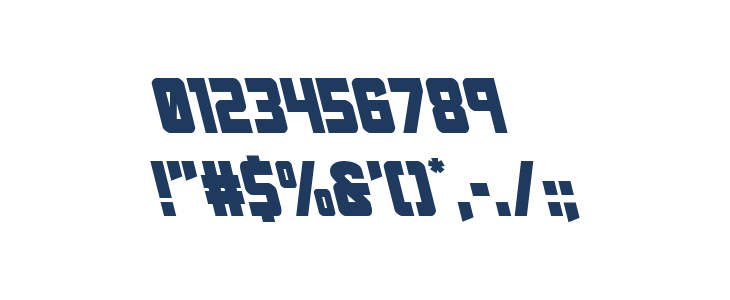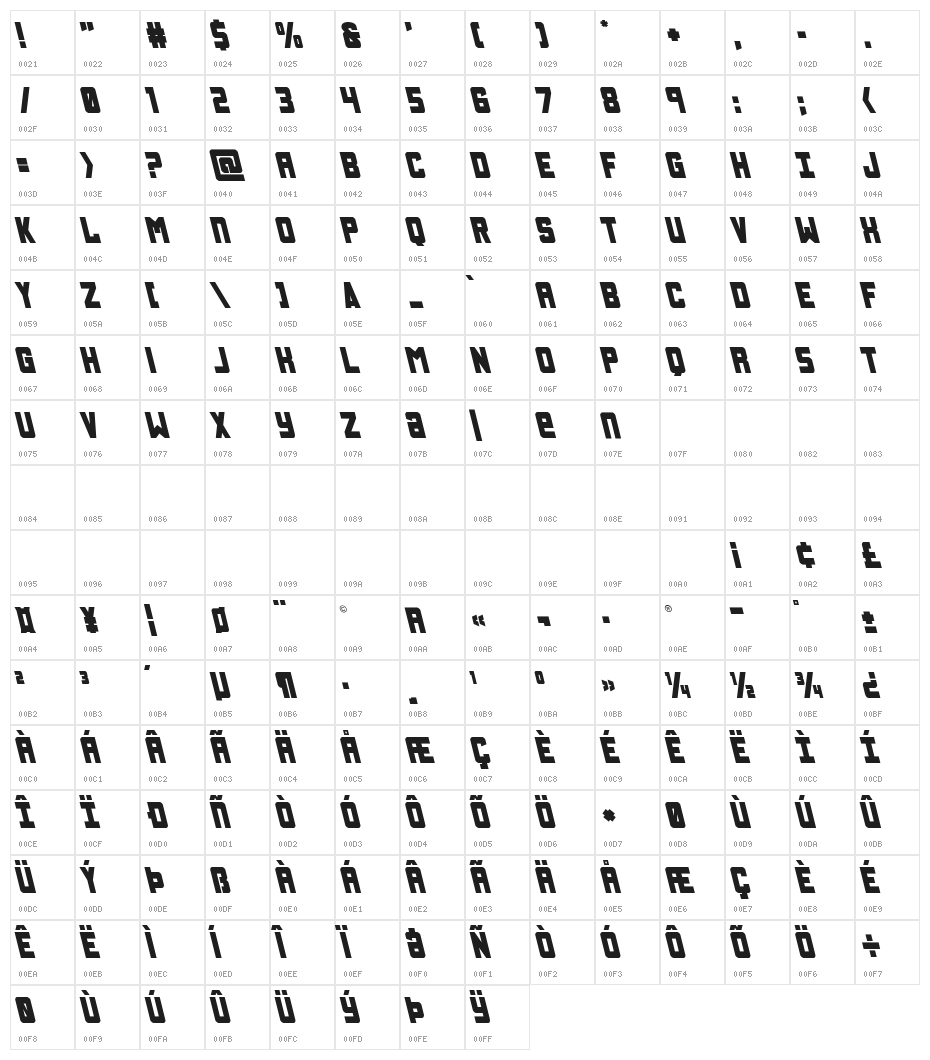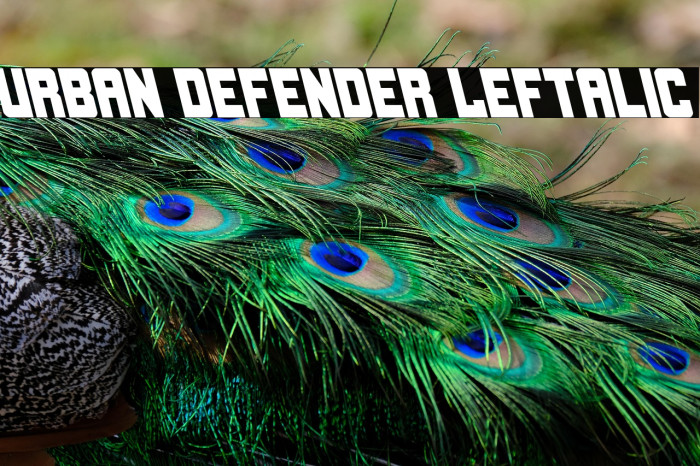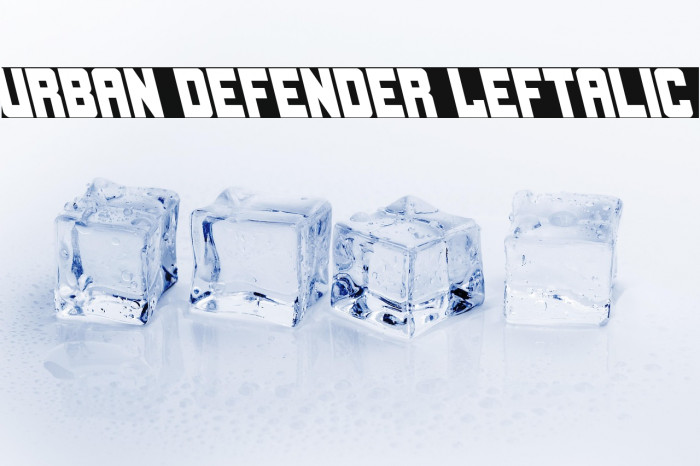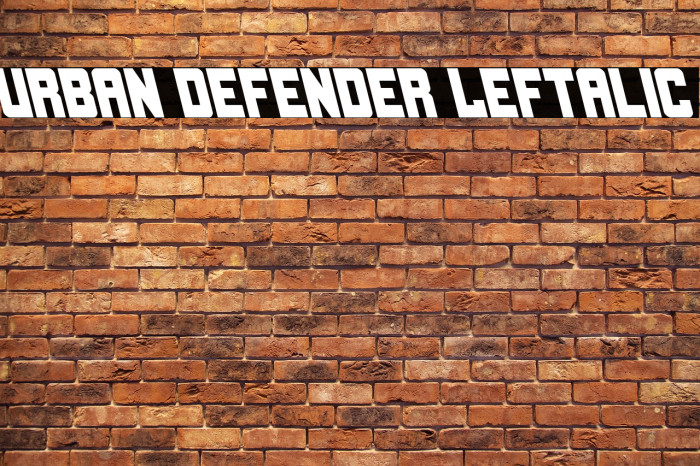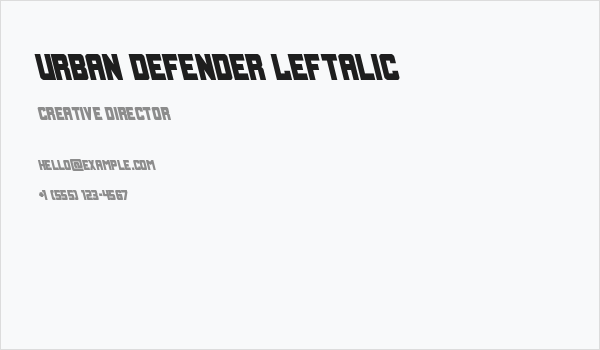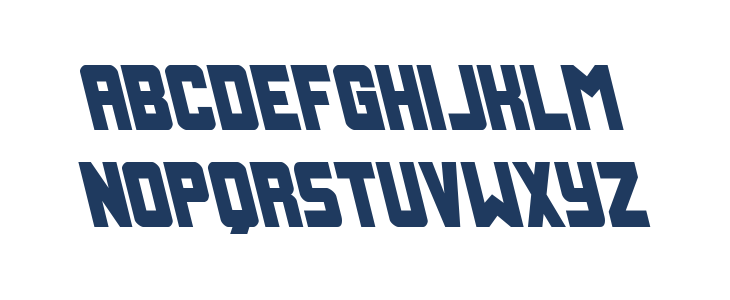
Urban Defender Leftalic Font
Urban Defender Leftalic Description
This font features a bold and angular design with a strong, geometric structure. The letters are characterized by sharp edges and a slightly slanted orientation, giving it a dynamic and assertive appearance. The uppercase and lowercase letters maintain a consistent style, with uniform stroke widths that enhance its boldness. The numerals and special characters follow the same design principles, ensuring a cohesive look across all elements. This font's distinct style makes it suitable for attention-grabbing designs.
| Proposed Projects | Ideal for urban-themed posters, video game titles, sports branding, and dynamic advertisements. |